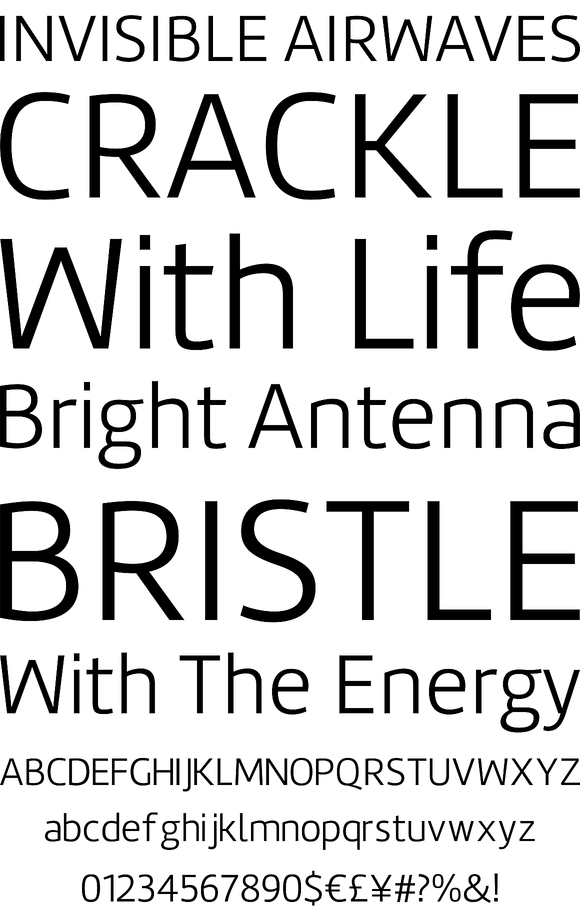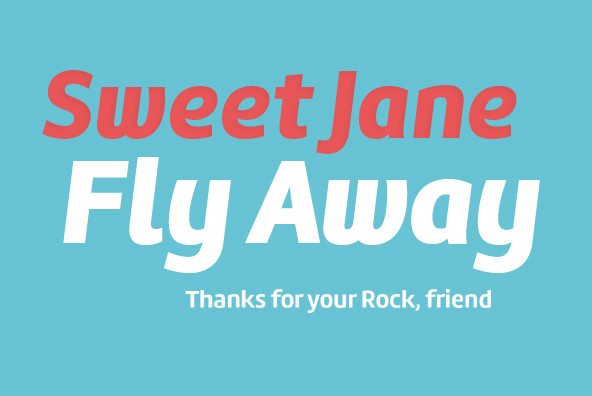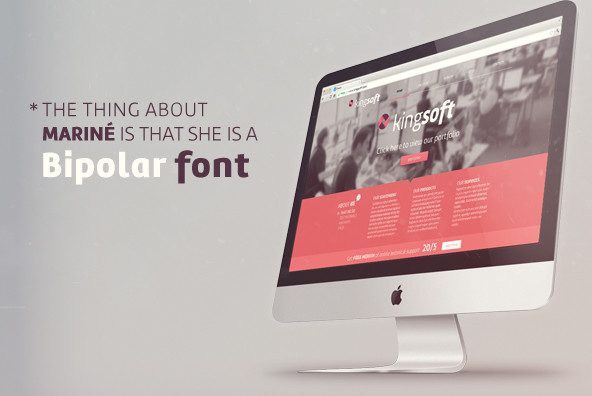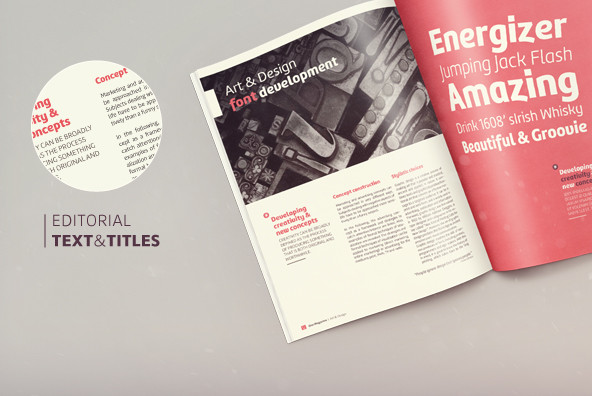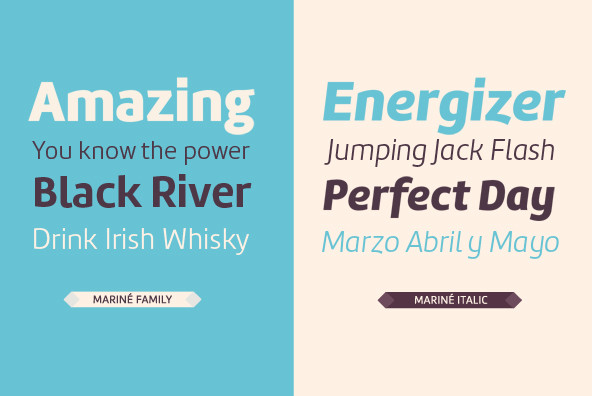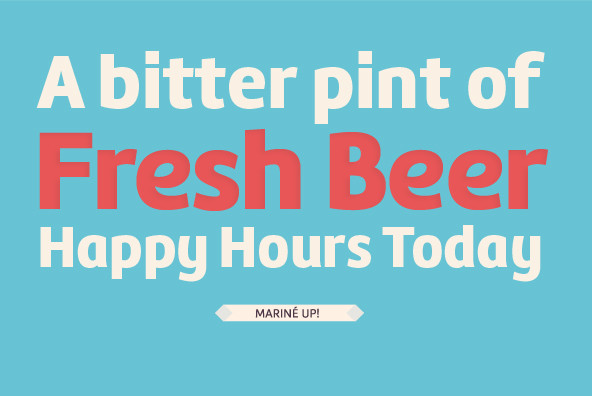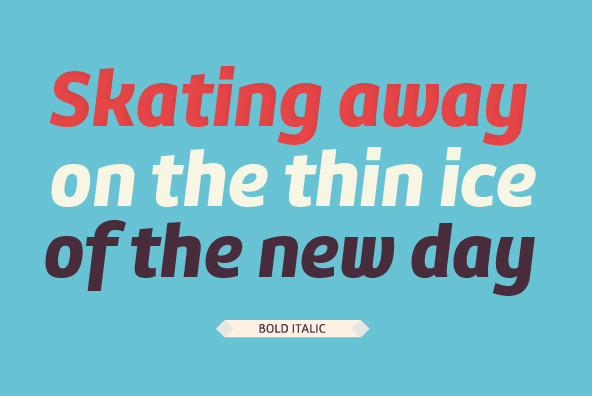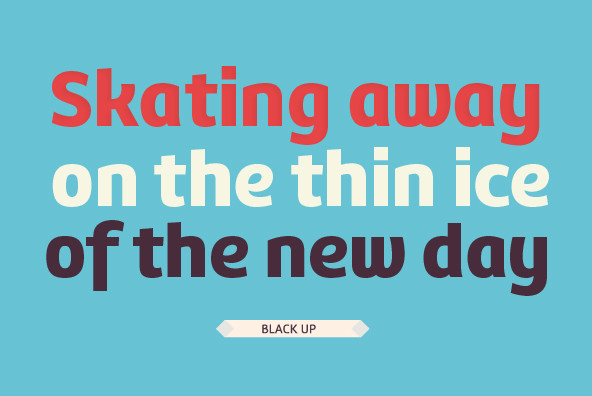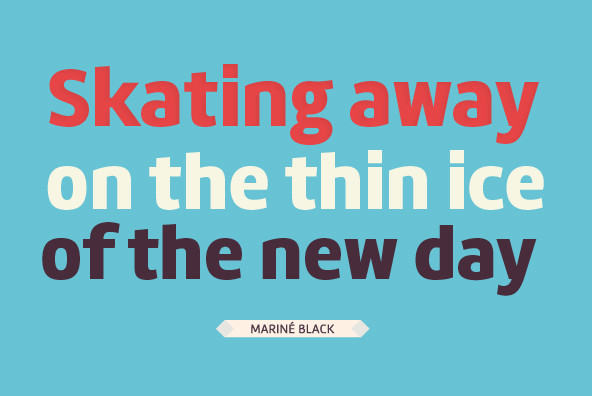
Marine Font
Marine is a geometric sans but with the softness of humanistic strokes. It's mild contrast and multiple different styles allow Marine to work well as both a text and display font. It also includes an Up version and calligraphic features that add a touch of informality. Marine is available in an extended family and is the close cousin of Amelia. All differences between Marine and Amelia appear in the italic and Up versions.